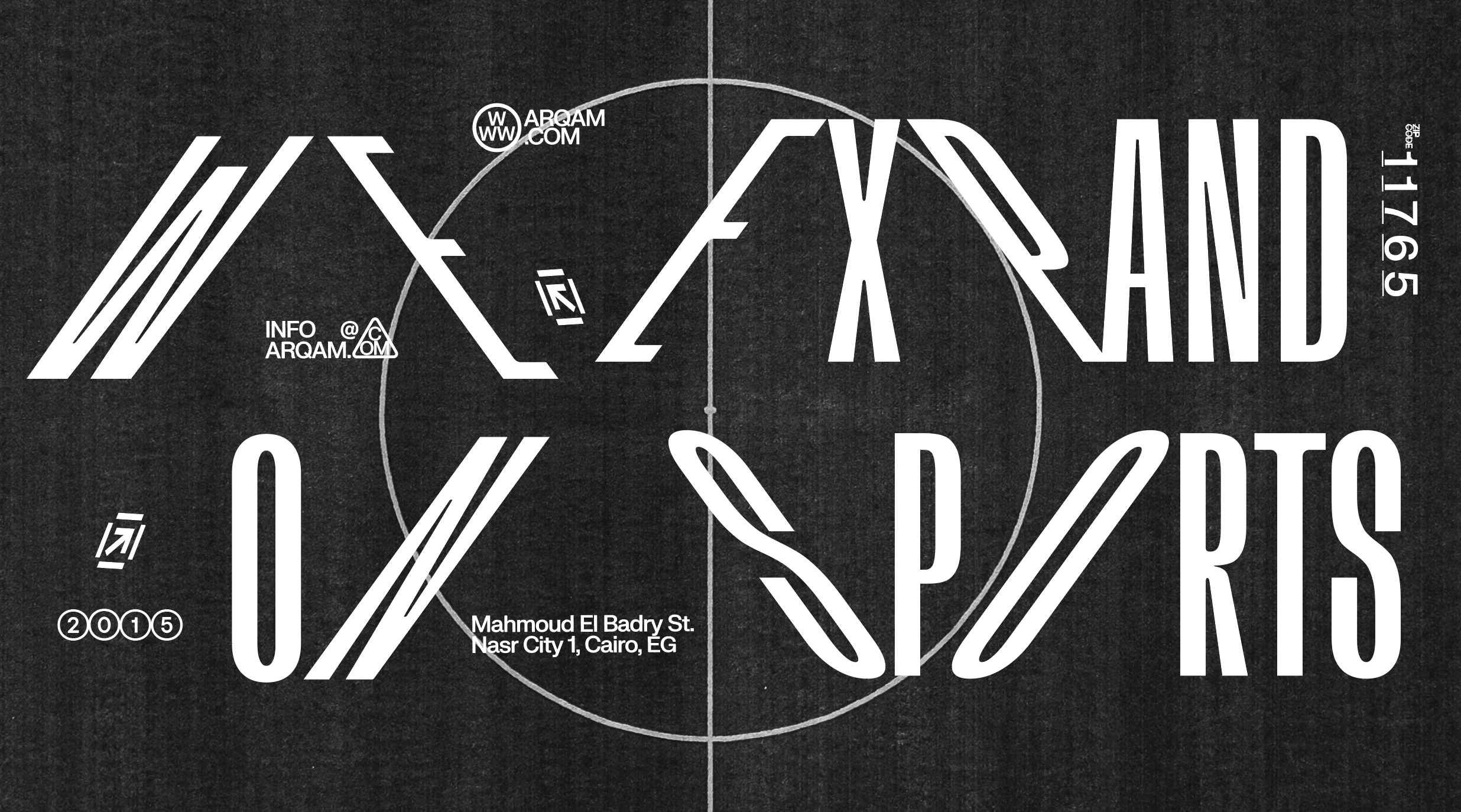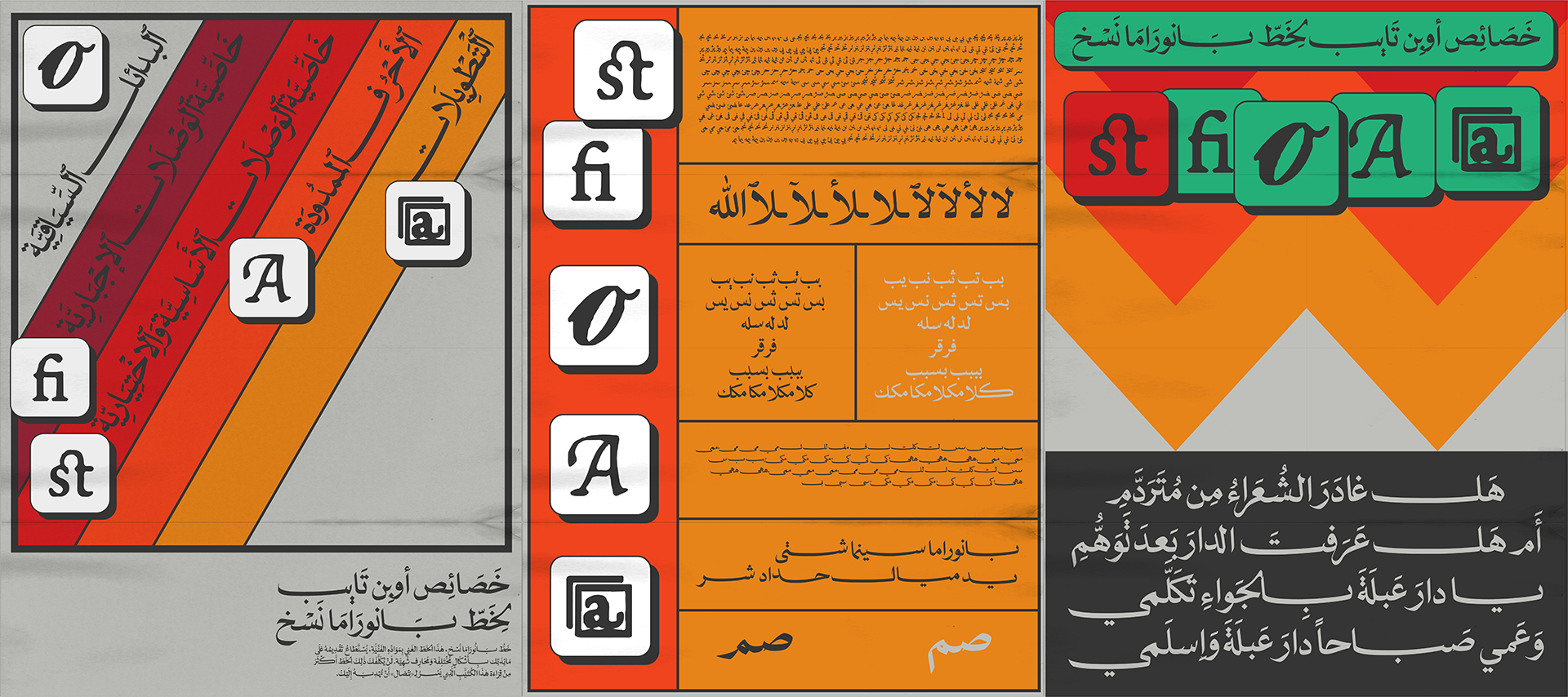
Introducing NT Panorama Naskh 💥📺📡📼🥷🛰️ The font draws from the handwritten manchette style once common across Arabic newspapers and vintage film posters. It acts as a homage to the freehand typography that preceded the modern digital typesetting across printed matter. We originally developed it for the 18th Panorama of the European Film as a custom headline typeface & today we’re releasing NT Panorama Naskh as a free font for personal & commercial use. 🧨 You can preview it (and download it) directly from here
Type Designer: Amr Bakr 3D & Motion Designer: Elwina Janzen Motion Designer: Faisal Faisal Creative Director: Nardine Shenouda